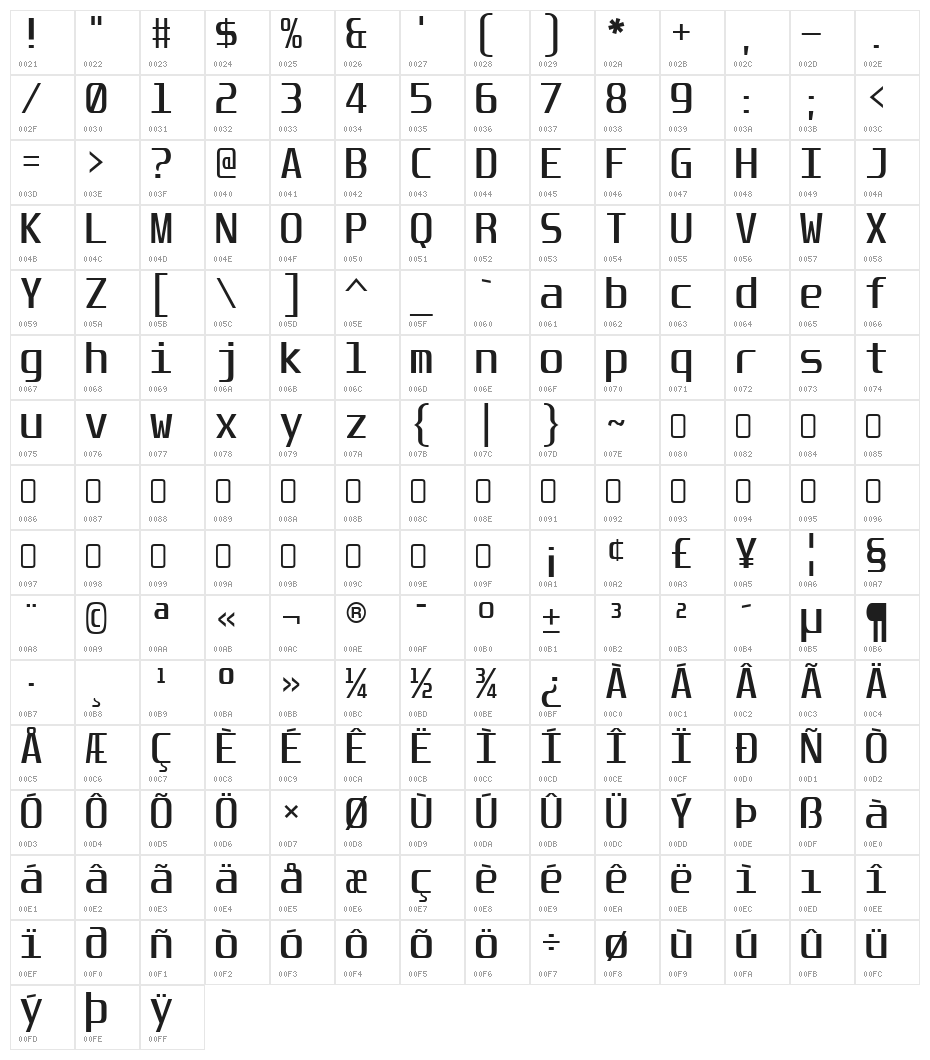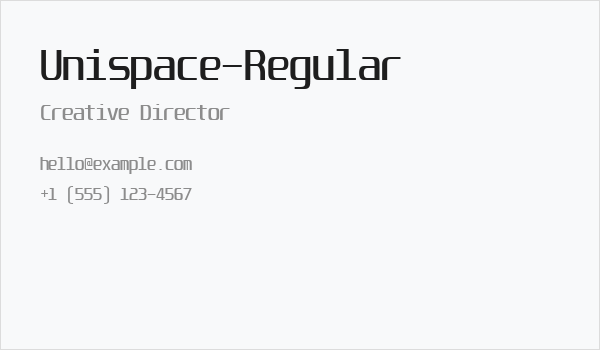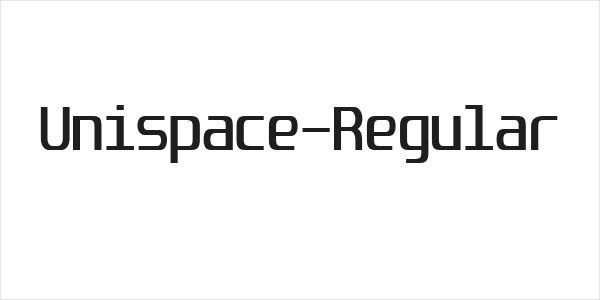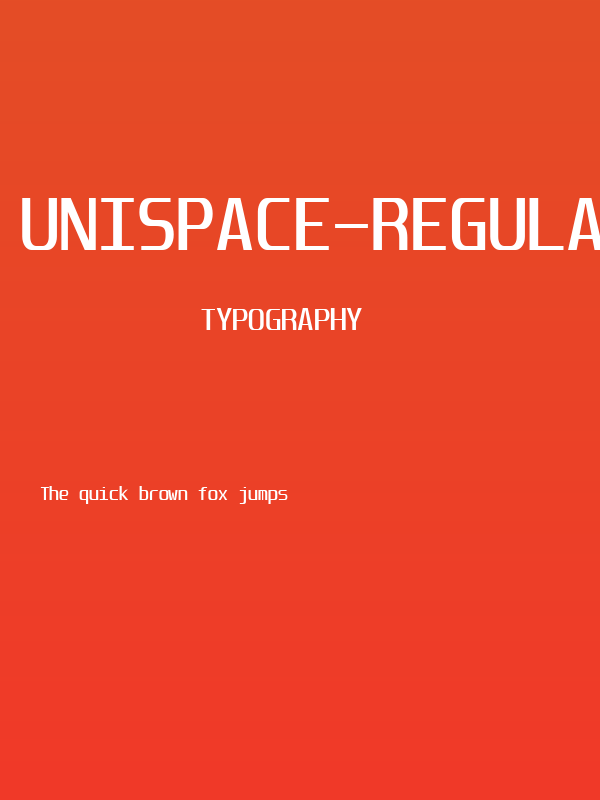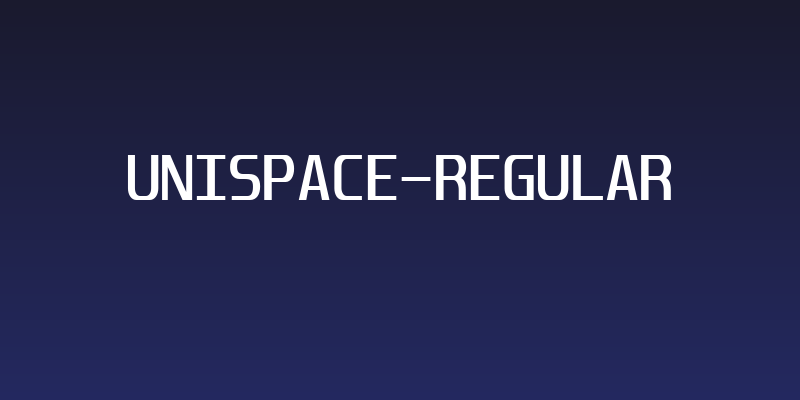
Unispace-Regular Font
Unispace-Regular Description
This typeface embodies a futuristic and clean aesthetic, characterized by its geometric and monospaced design. The letters are uniform in width, providing a consistent and balanced appearance across all characters. The uppercase and lowercase letters maintain a similar height, enhancing readability and creating a cohesive look. The font's sharp angles and straight lines give it a modern and technical feel, making it suitable for digital and tech-related projects. The numerals and special characters are designed with the same precision, ensuring clarity and uniformity. Overall, this font is versatile and can be used in various design contexts where a contemporary and structured look is desired.
| Use Case | Headlines, Digital interfaces, Coding |
| Proposed Projects | Ideal for tech branding, digital interfaces, coding environments, and modern graphic design projects. |